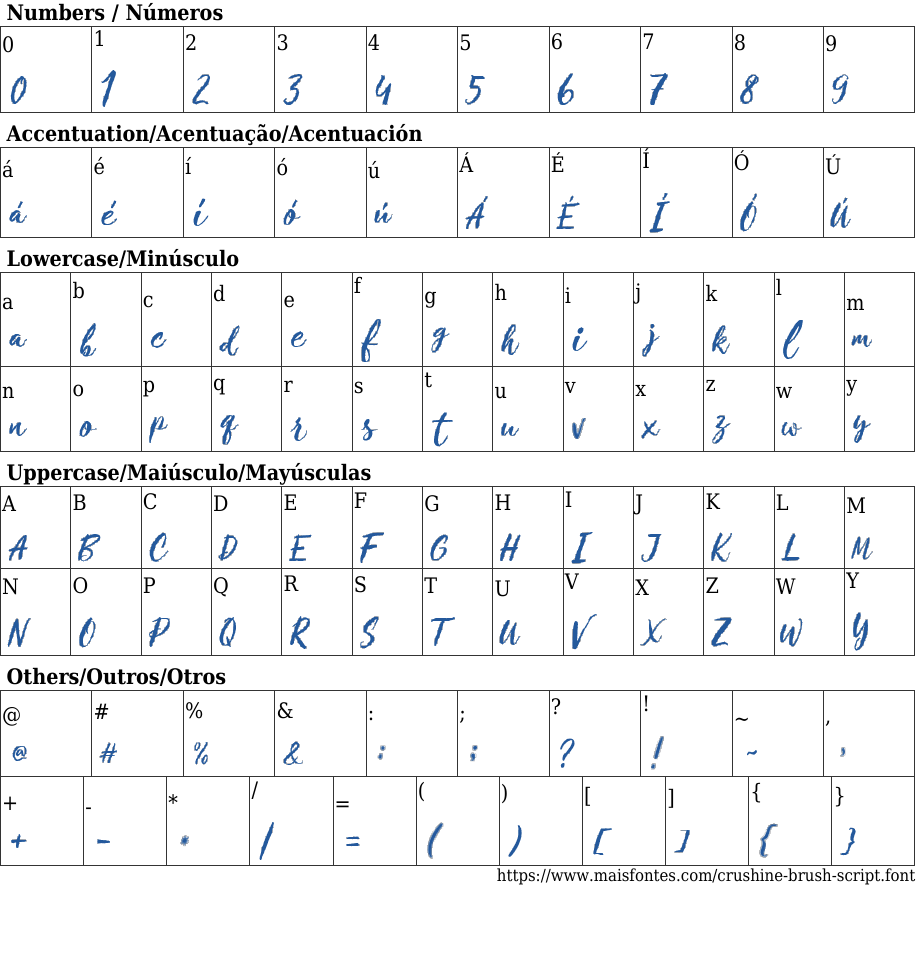
Crushine Brush Script Font Free Download . latest from the whatfontis forum. Crushine is a casually and quickly written brush script. Then scanned and carefully drawn into vector format. crushine is a casually and quickly written brush script. Letters are made with a brush pen on a paper. The crushine brush script font has a script typography and is great for. Letters are made with brush pen on a paper. Crushine is a casually and quickly written brush script. crushine brush script: thousands of designers (famous or not) use the image font detection system to find a font or similar free fonts from an image. crushine is a casually and quickly written brush script. Letters are made with brush pen on a paper. Letters are made with brush. Crushine is a casually and quickly written brush script.
Letters are made with a brush pen on a paper. Letters are made with brush pen on a paper. Crushine is a casually and quickly written brush script. Then scanned and carefully drawn into vector format. crushine is a casually and quickly written brush script. crushine brush script: Letters are made with brush. crushine is a casually and quickly written brush script. Crushine is a casually and quickly written brush script. thousands of designers (famous or not) use the image font detection system to find a font or similar free fonts from an image.
Crushine Brush Script Font Free Download crushine is a casually and quickly written brush script. Crushine is a casually and quickly written brush script. Letters are made with brush. crushine is a casually and quickly written brush script. crushine brush script: thousands of designers (famous or not) use the image font detection system to find a font or similar free fonts from an image. latest from the whatfontis forum. crushine is a casually and quickly written brush script. Crushine is a casually and quickly written brush script. Letters are made with brush pen on a paper. Then scanned and carefully drawn into vector format. Crushine is a casually and quickly written brush script. Letters are made with brush pen on a paper. Letters are made with a brush pen on a paper. The crushine brush script font has a script typography and is great for.
40+ Bold & Free Script Fonts 2021 Design Shack Crushine Brush Script Font Free Download The crushine brush script font has a script typography and is great for. crushine brush script: Letters are made with brush pen on a paper. Then scanned and carefully drawn into vector format. Letters are made with brush pen on a paper. Crushine is a casually and quickly written brush script. latest from the whatfontis forum. Letters are. Crushine Brush Script Font Free Download.
14 Free Brush Script Fonts • Little Gold Pixel Crushine Brush Script Font Free Download Letters are made with brush pen on a paper. Then scanned and carefully drawn into vector format. latest from the whatfontis forum. Crushine is a casually and quickly written brush script. crushine brush script: Crushine is a casually and quickly written brush script. crushine is a casually and. Crushine Brush Script Font Free Download.
Brush Script Font Download Crushine Brush Script Font Free Download Letters are made with a brush pen on a paper. Crushine is a casually and quickly written brush script. Letters are made with brush pen on a paper. latest from the whatfontis forum. Then scanned and carefully drawn into vector format.. Crushine Brush Script Font Free Download.
31+ Best Brush Fonts (Script, Paint, and More!) Crushine Brush Script Font Free Download The crushine brush script font has a script typography and is great for. Then scanned and carefully drawn into vector format. Letters are made with brush pen on a paper. thousands of designers (famous or not) use the image font detection system to find a font or similar free fonts from an image. Letters are made with brush. . Crushine Brush Script Font Free Download.
Regular Brush Script Font All Free Fonts Crushine Brush Script Font Free Download Crushine is a casually and quickly written brush script. Then scanned and carefully drawn into vector format. Letters are made with brush. crushine is a casually and quickly written brush script. Letters are made with brush pen on a paper. thousands of designers (famous or not) use the image font detection system to find a font or similar. Crushine Brush Script Font Free Download.
40+ Best Brush Script Fonts (Free & Premium) Crushine Brush Script Font Free Download Letters are made with brush. crushine brush script: crushine is a casually and quickly written brush script. Crushine is a casually and quickly written brush script. Letters are made with brush pen on a paper. Then scanned and carefully drawn into vector format. latest from the whatfontis forum. The crushine brush script font has a script typography. Crushine Brush Script Font Free Download.
25+ Free Brush, Script & Hand Lettering Fonts Design Shack Crushine Brush Script Font Free Download The crushine brush script font has a script typography and is great for. Letters are made with a brush pen on a paper. Crushine is a casually and quickly written brush script. crushine is a casually and quickly written brush script. latest from the whatfontis forum. Letters are made with brush pen on a paper. crushine brush. Crushine Brush Script Font Free Download.
25+ Free Brush, Script & Hand Lettering Fonts Design Shack Crushine Brush Script Font Free Download Crushine is a casually and quickly written brush script. Letters are made with brush pen on a paper. crushine brush script: latest from the whatfontis forum. Crushine is a casually and quickly written brush script. thousands of designers (famous or not) use the image font detection system to find a font or similar free fonts from an. Crushine Brush Script Font Free Download.
40+ Best Brush Script Fonts (Free & Premium) 2023 Crushine Brush Script Font Free Download Letters are made with a brush pen on a paper. Letters are made with brush pen on a paper. crushine brush script: Letters are made with brush. Crushine is a casually and quickly written brush script. latest from the whatfontis forum. Then scanned and carefully drawn into vector format. The crushine brush script font has a script typography. Crushine Brush Script Font Free Download.